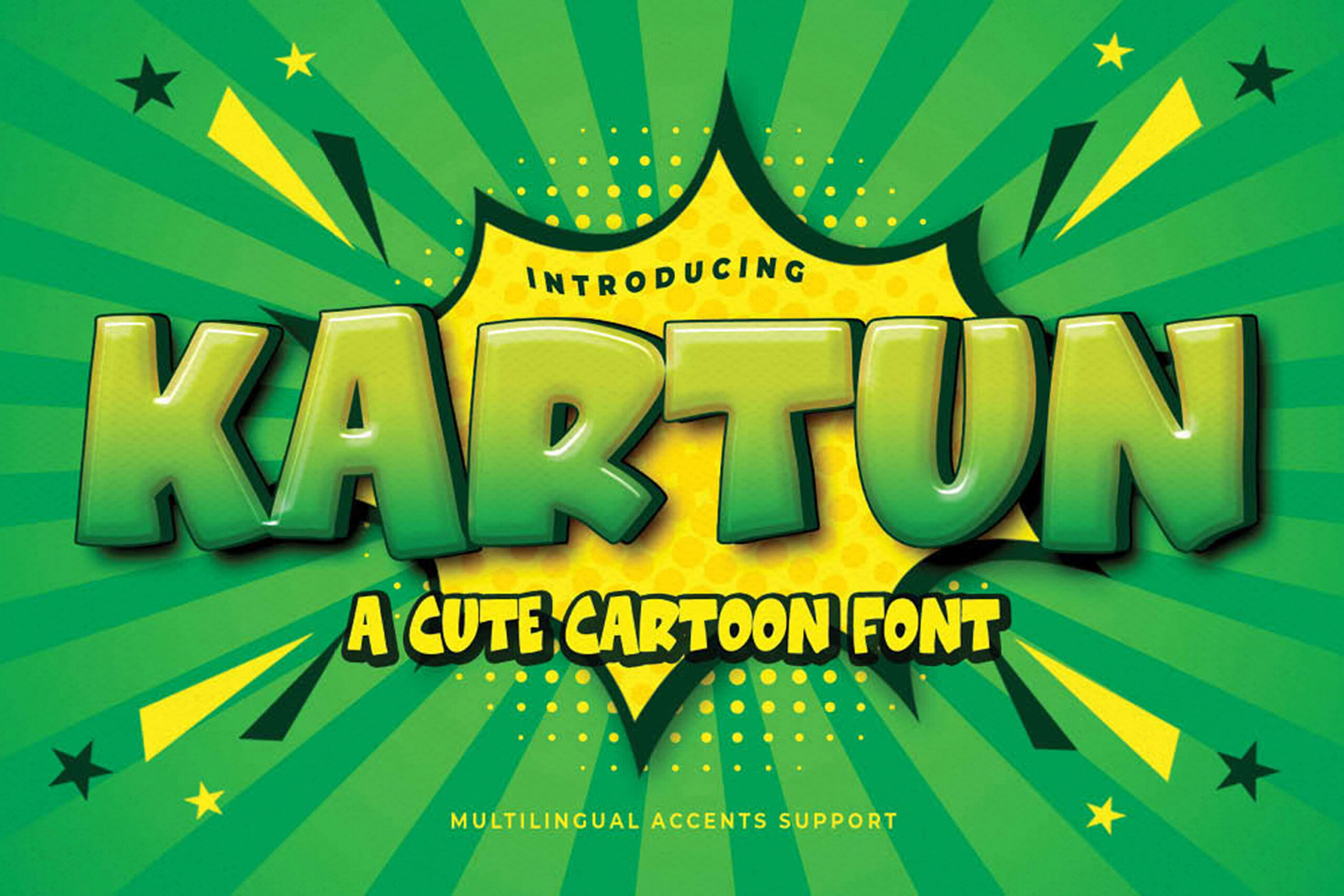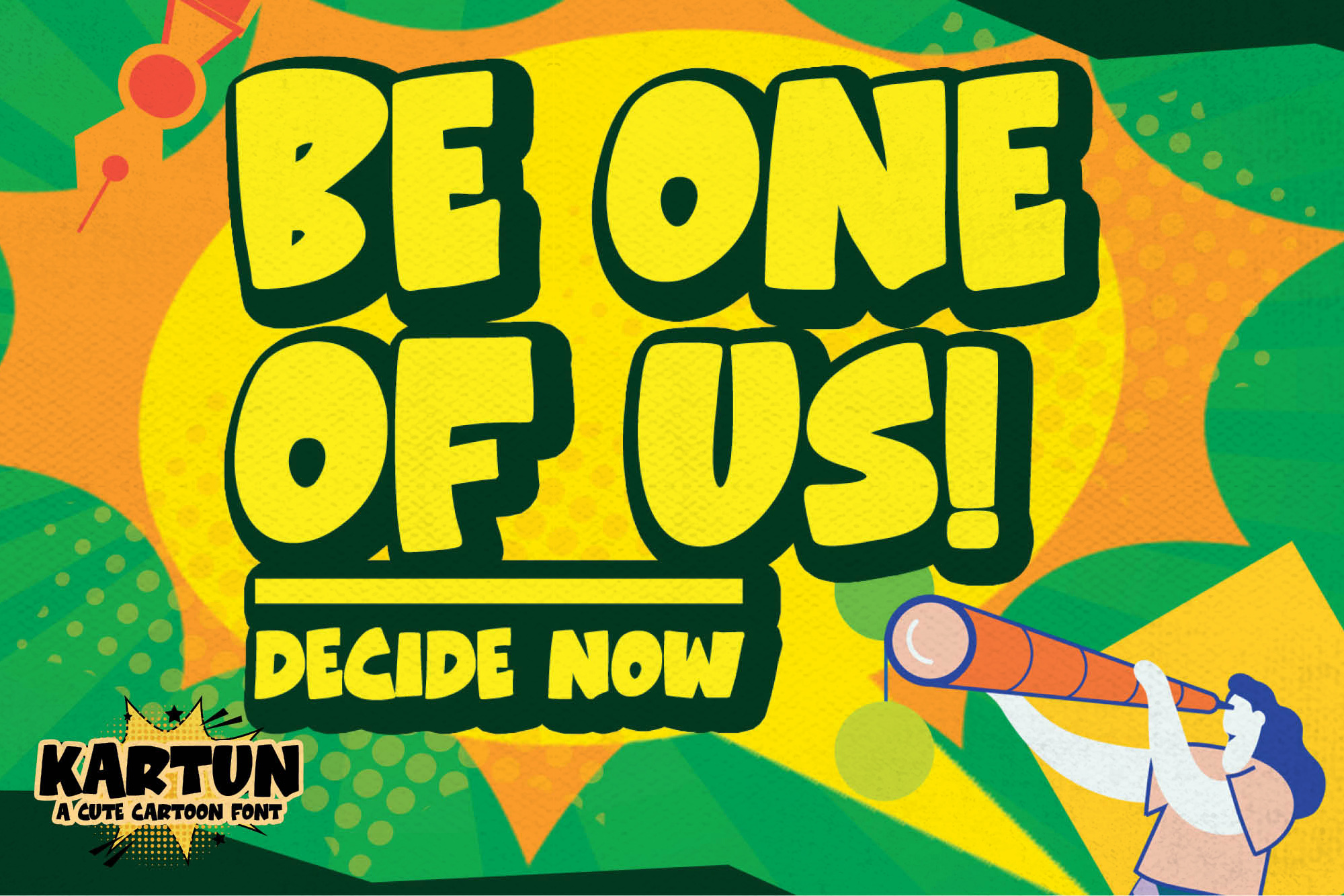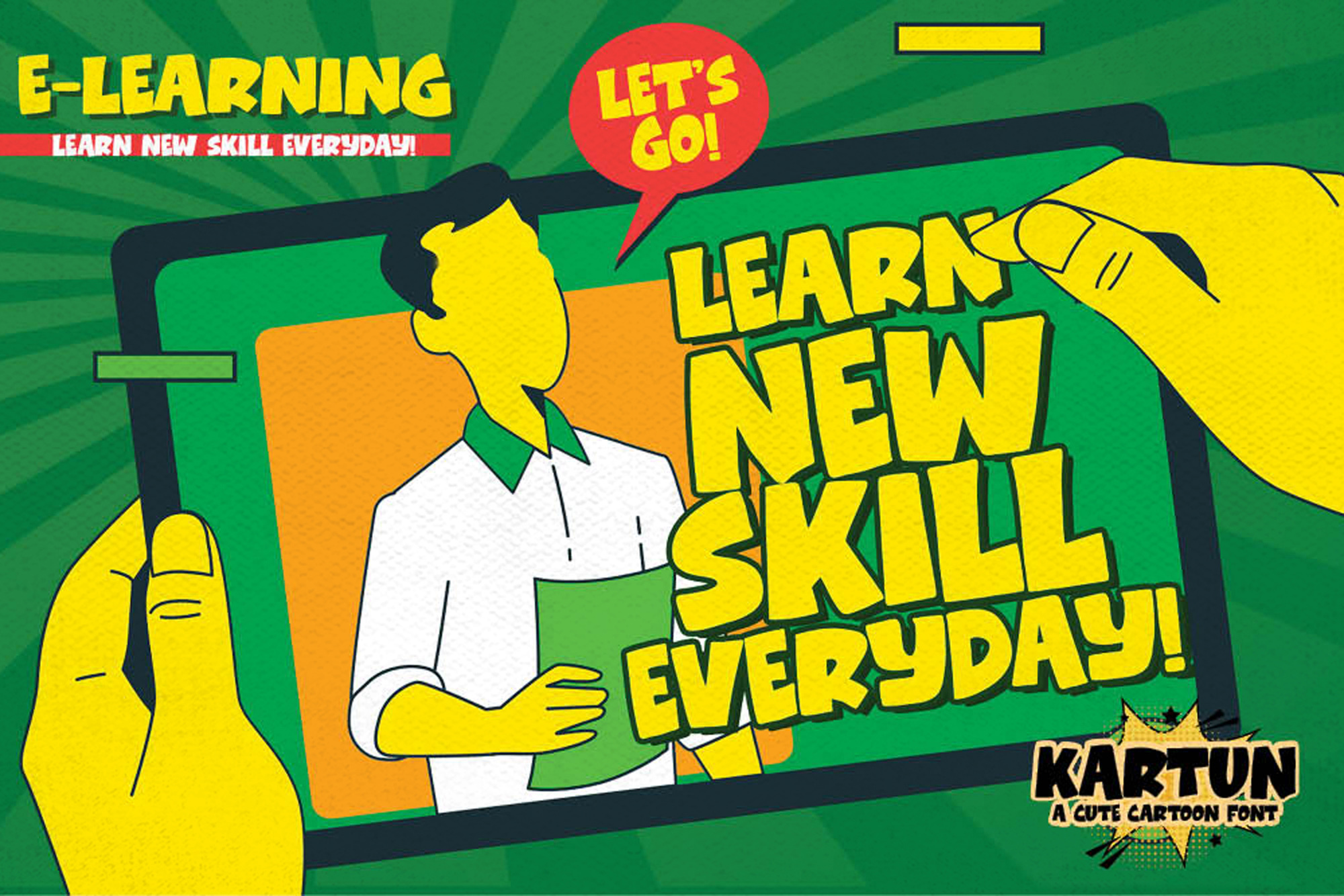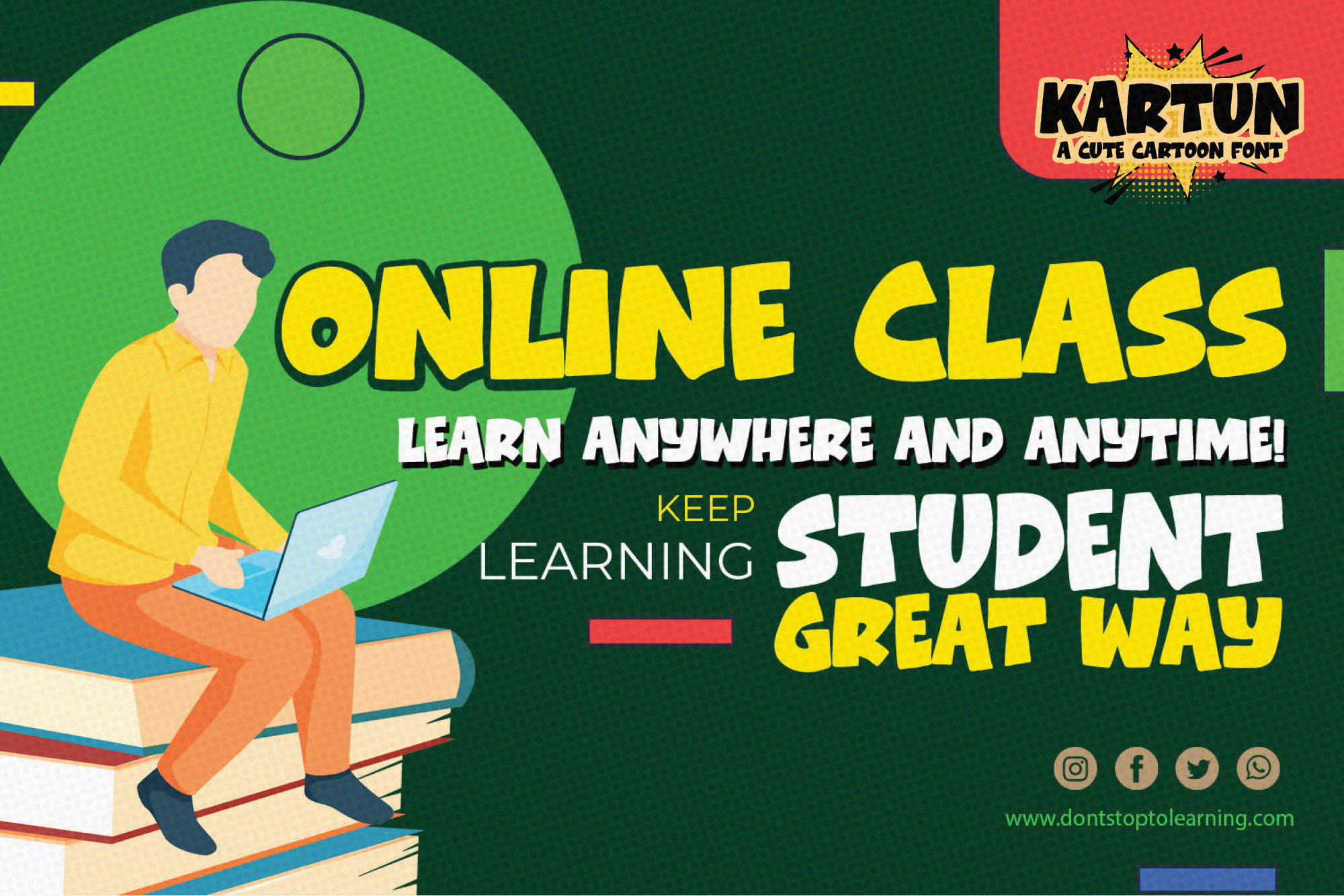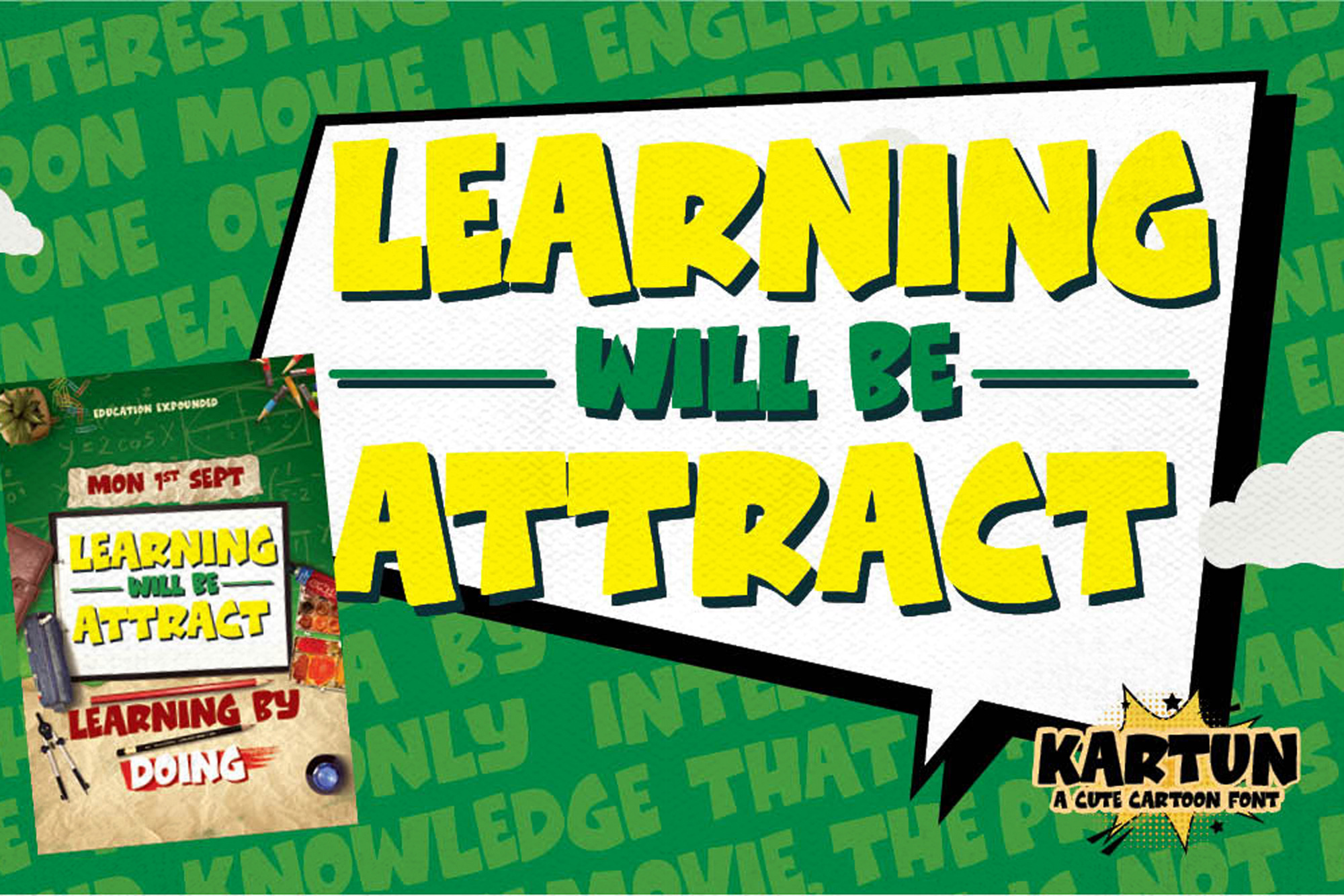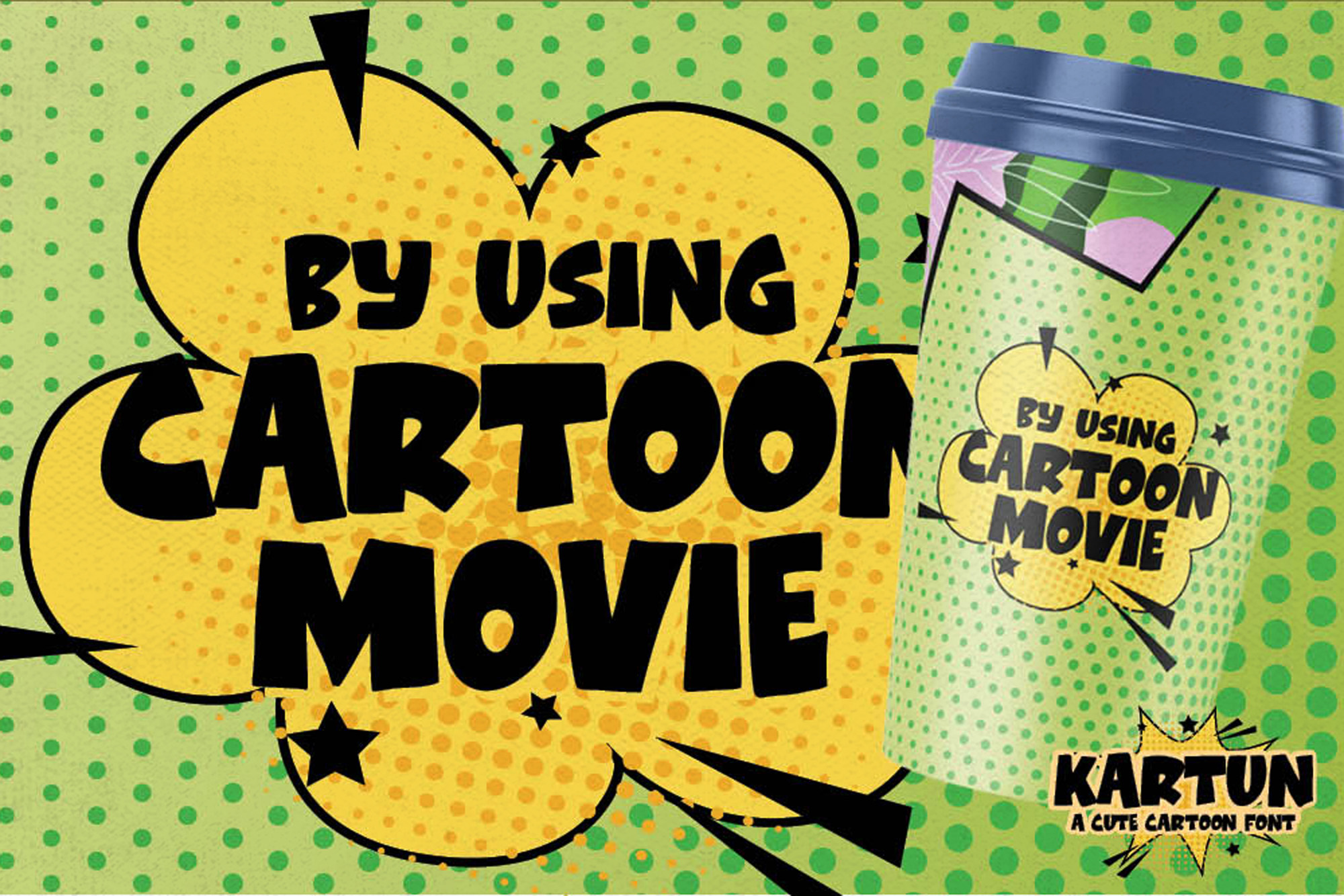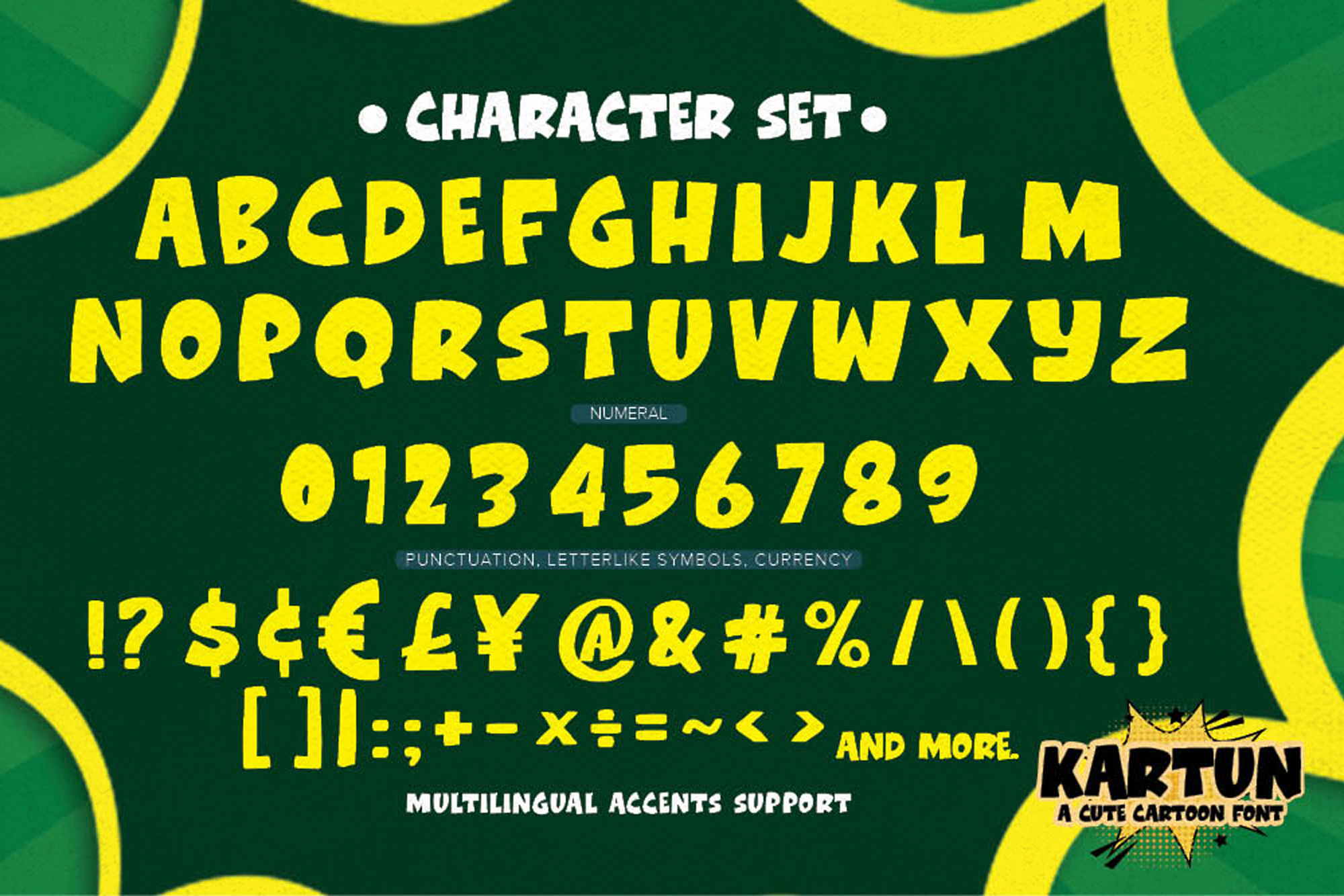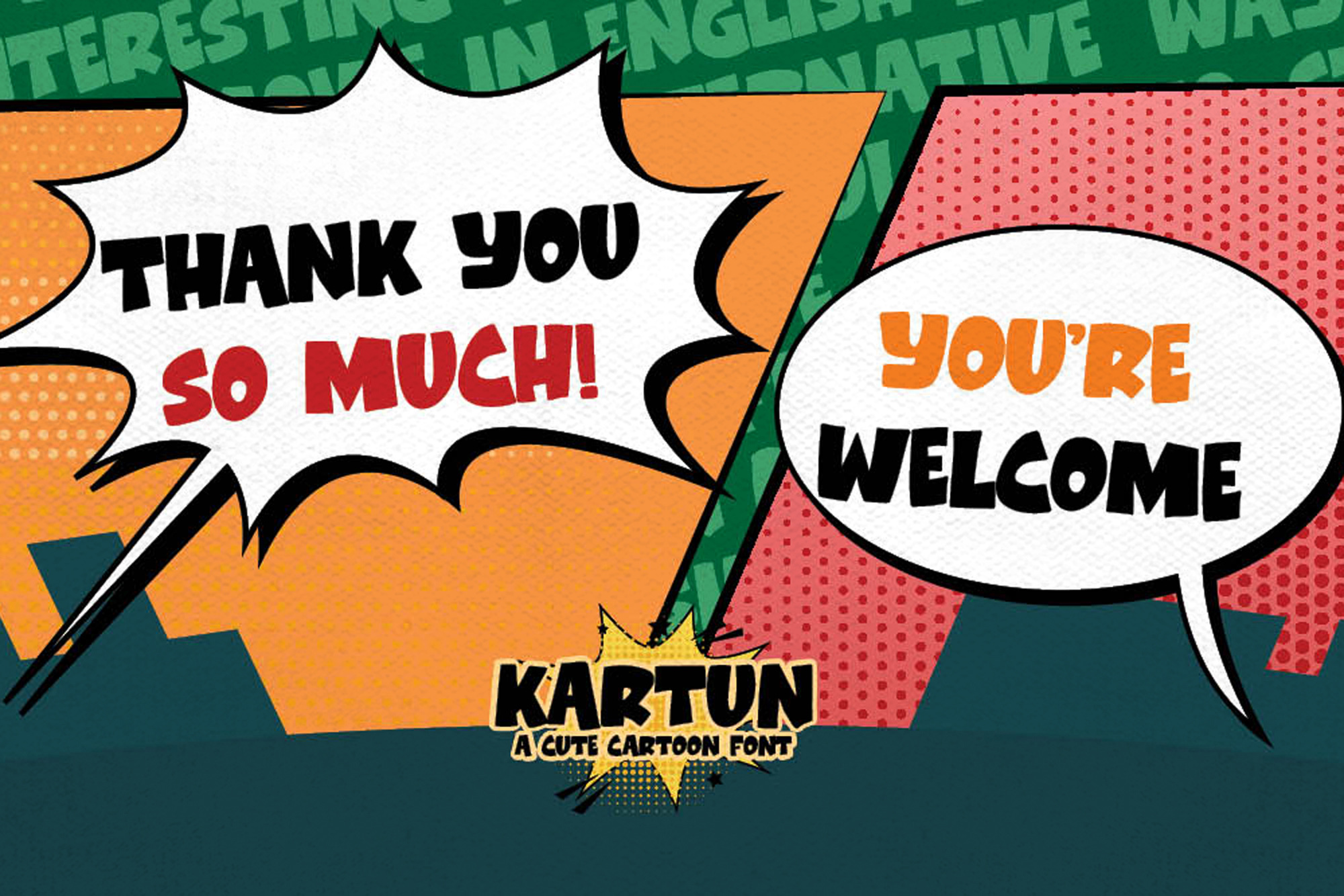
KARTUN – A Cute Cartoon Font ,unique style and dramatic movement that is written casually and quickly.
The best for poster,project , designs look modern, unique and fun. It’s perfect for labels, quotes, posters, DIY projects, branding, packaging, greeting cards, websites, photography overlays, signs, scrapbooking, tags and so much more! graffiti style with a fun theme very good for graffity poster, flyer, childrenbook, cartoon, comic etc. That is why KARTUN has a cute , and unique characteristic more natural look.